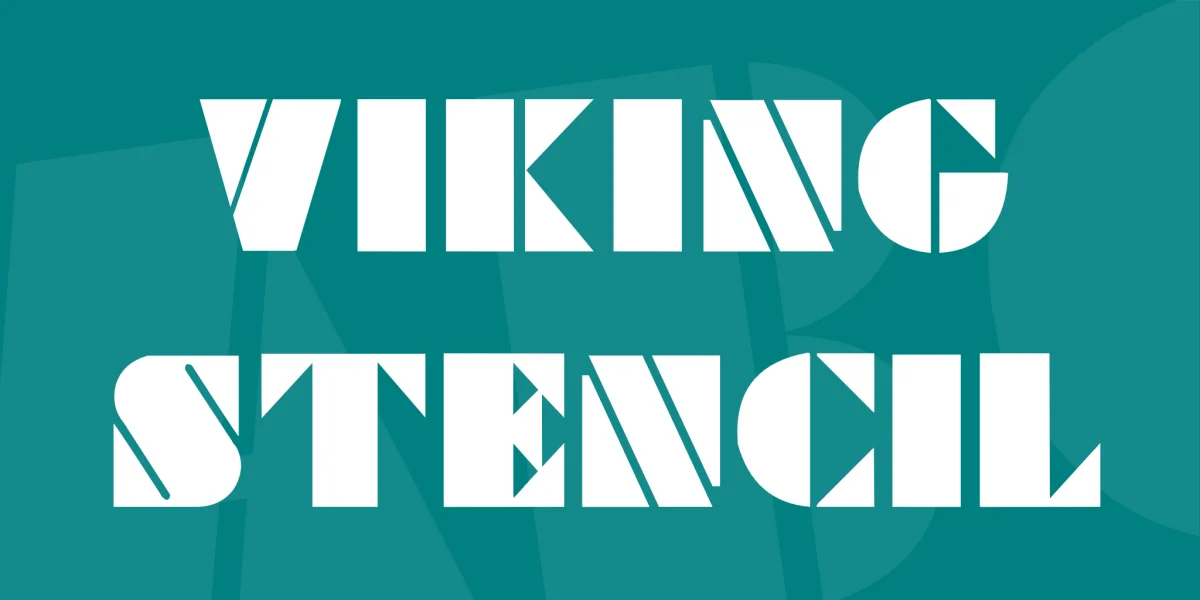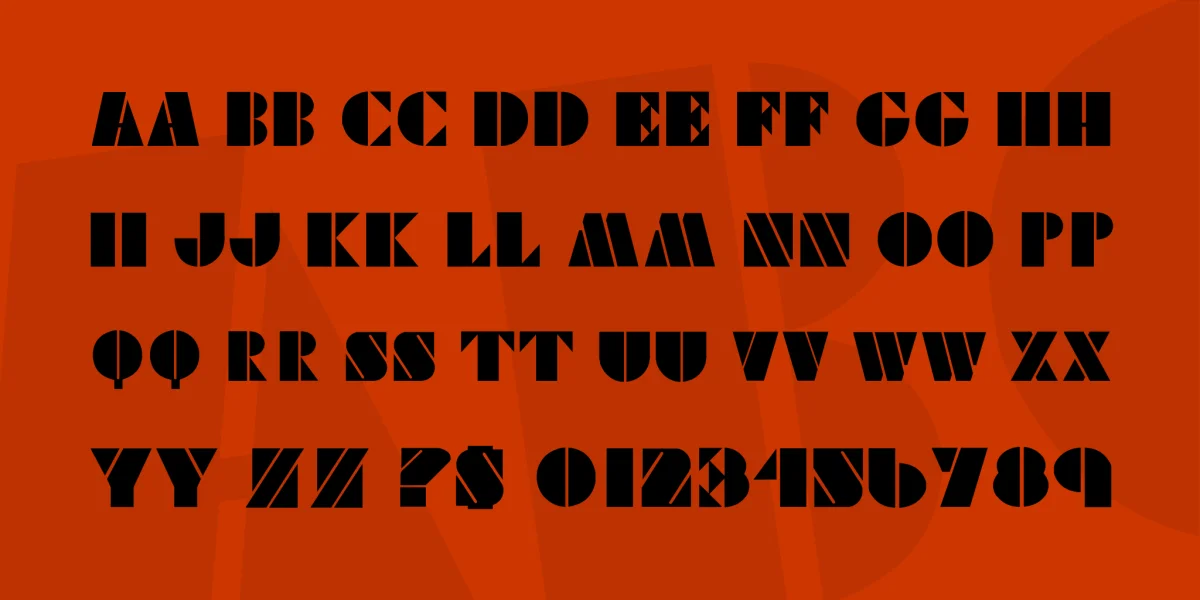
Hey there football fans! All you Minn. fans might find this one a "little" familiar. Not that much special here other than a few letters flipped around backward while lowercase. Feel free to re-distribute for non-commercial use.